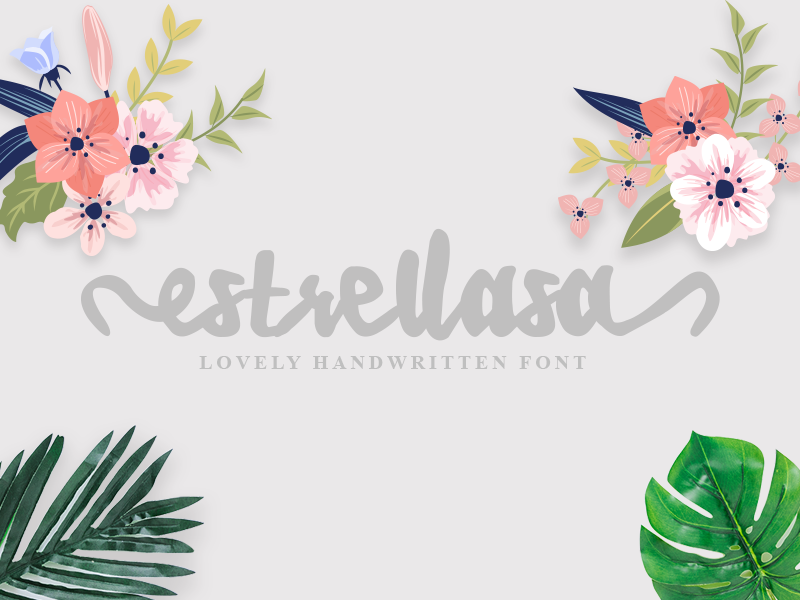
Preview and download Estrellasa Font. Created by Denny Sutanto in Script Handwritten styles with Free for personal use license.
Estrellasa is a Modern Script Handwritten Font make this Font looks Minimalist, Stylish and Natural. This Font is suites for many Project that need Handwritting Taste, such as logos & branding, invitation, stationery, wedding designs, etc. Note of the author: NOTE: This Demo is for PERSONAL USE ONLY! But any donation are very appreciated. PayPal Account for Donations: paypal.me/dennysutanto93 link to purchase full version and commercial license: https://www.creativefabrica.com/product/estrellasa/ Please visit our store for more great fonts: https://www.creativefabrica.com/designer/dennysutanto060393/ and follow my Instagram for update: https://www.instagram.com/densudesign/ Thank You |